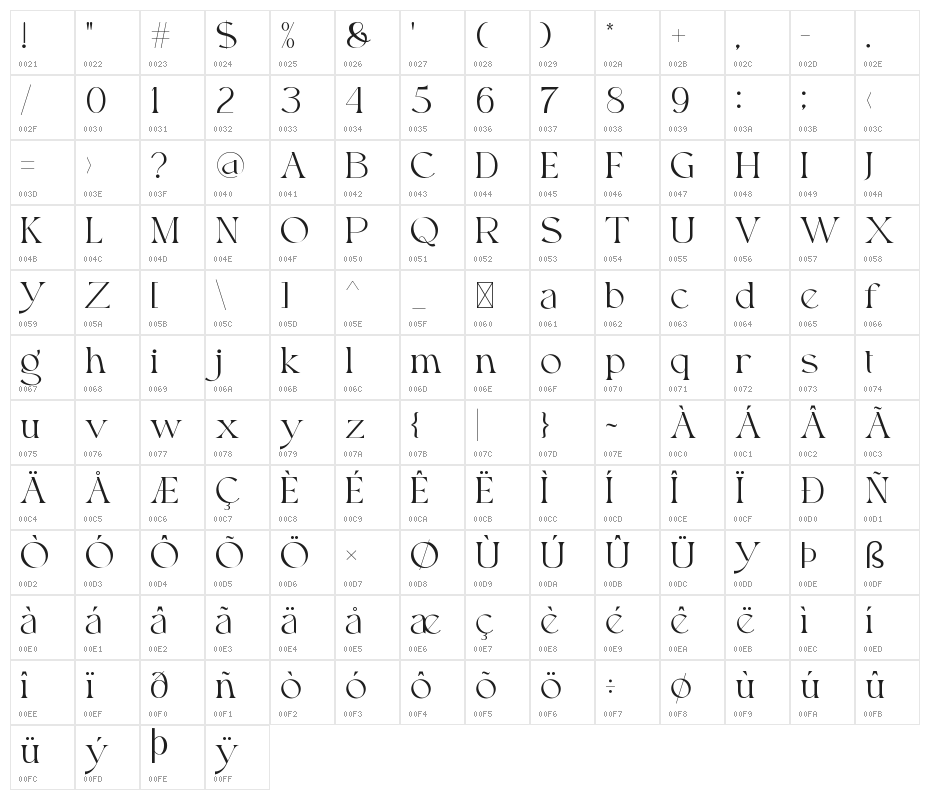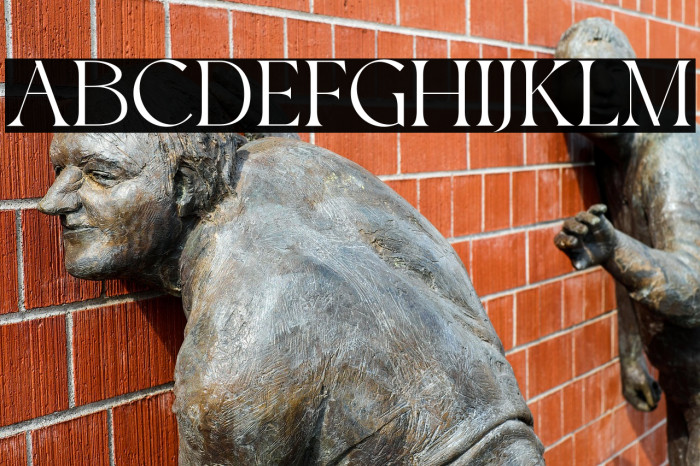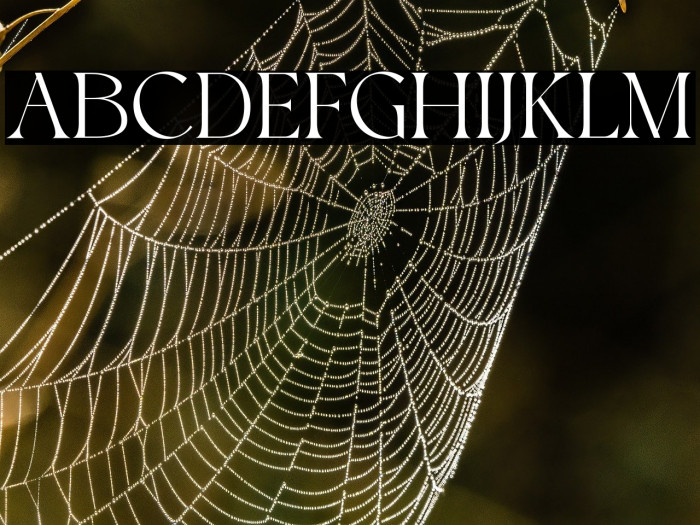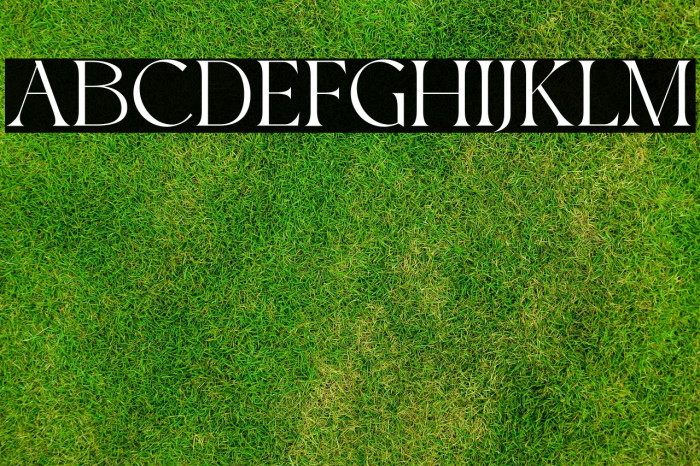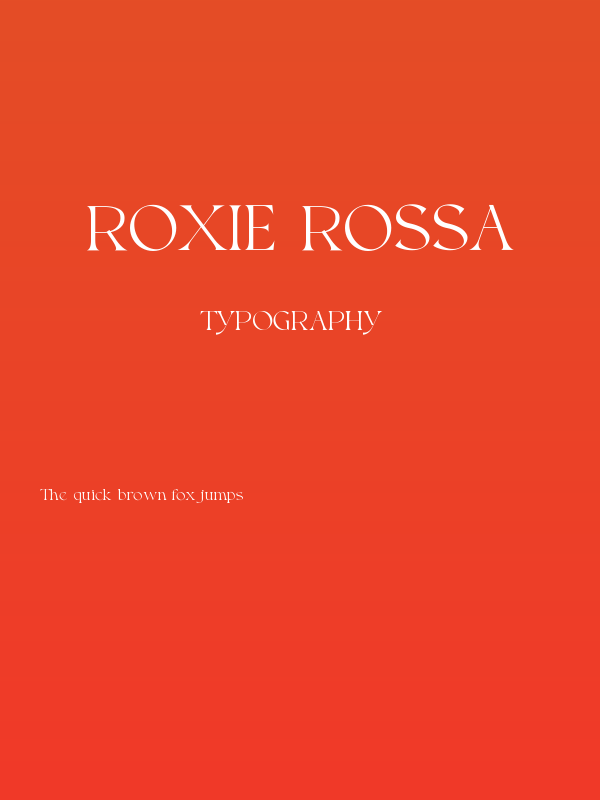
Roxie Rossa Font
Roxie Rossa Description
This font features a sophisticated and elegant design, characterized by its high contrast between thick and thin strokes. The serifs are pronounced and add a touch of classic elegance, while the overall structure maintains a modern appeal. The uppercase letters are tall and commanding, with a slight flair that adds to their distinctiveness. The lowercase letters are more rounded, providing a harmonious balance to the uppercase. The numerals are stylish and consistent with the overall aesthetic, making them suitable for both formal and contemporary uses. Special characters are designed with the same attention to detail, ensuring versatility across various applications.
| Use Case | Headlines, Logos, Editorial design |
| Proposed Projects | Ideal for luxury branding, editorial design, wedding invitations, and high-end product packaging. |